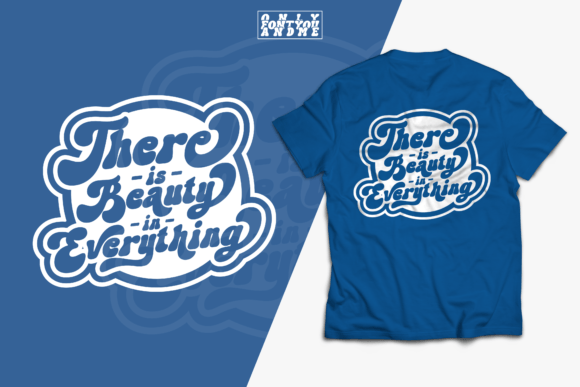
Hello Angela is a stunning and fun display font. This font is PUA encoded which means you can access all of the glyphs and alternates with ease! It will look great on headlines, magazines, logos, branding and so much more!